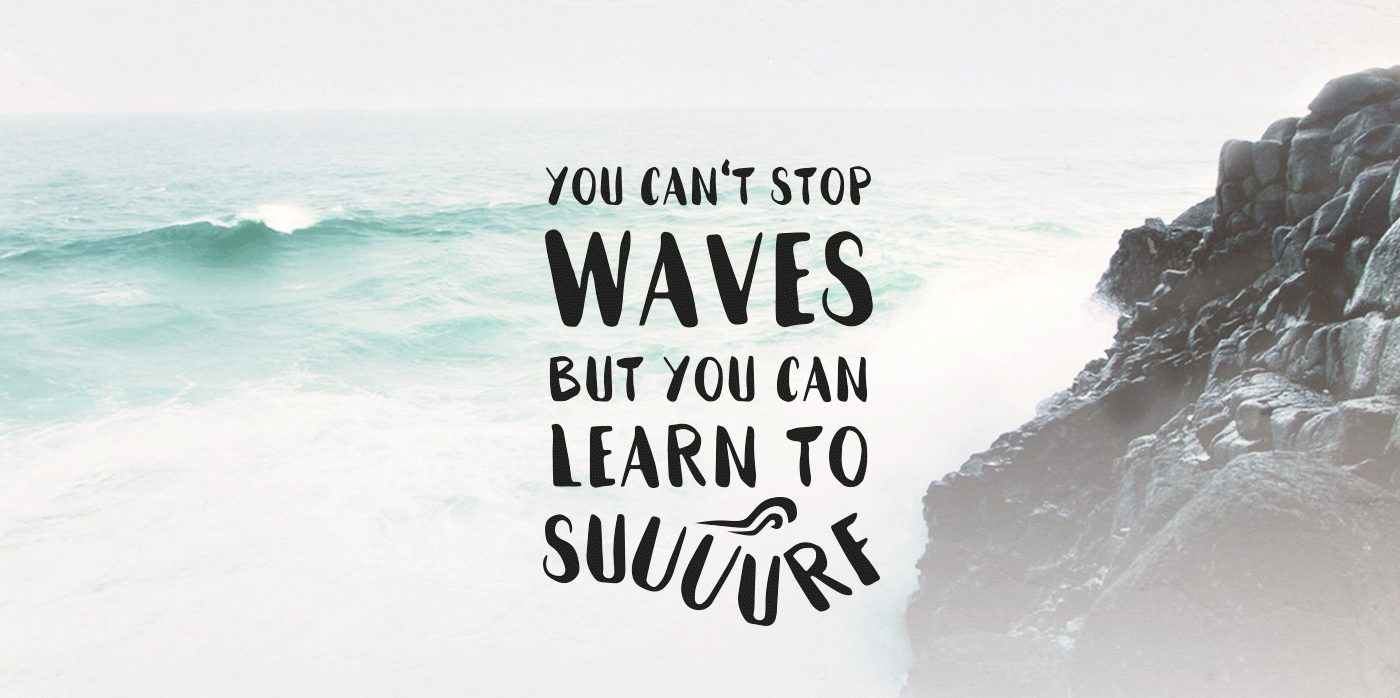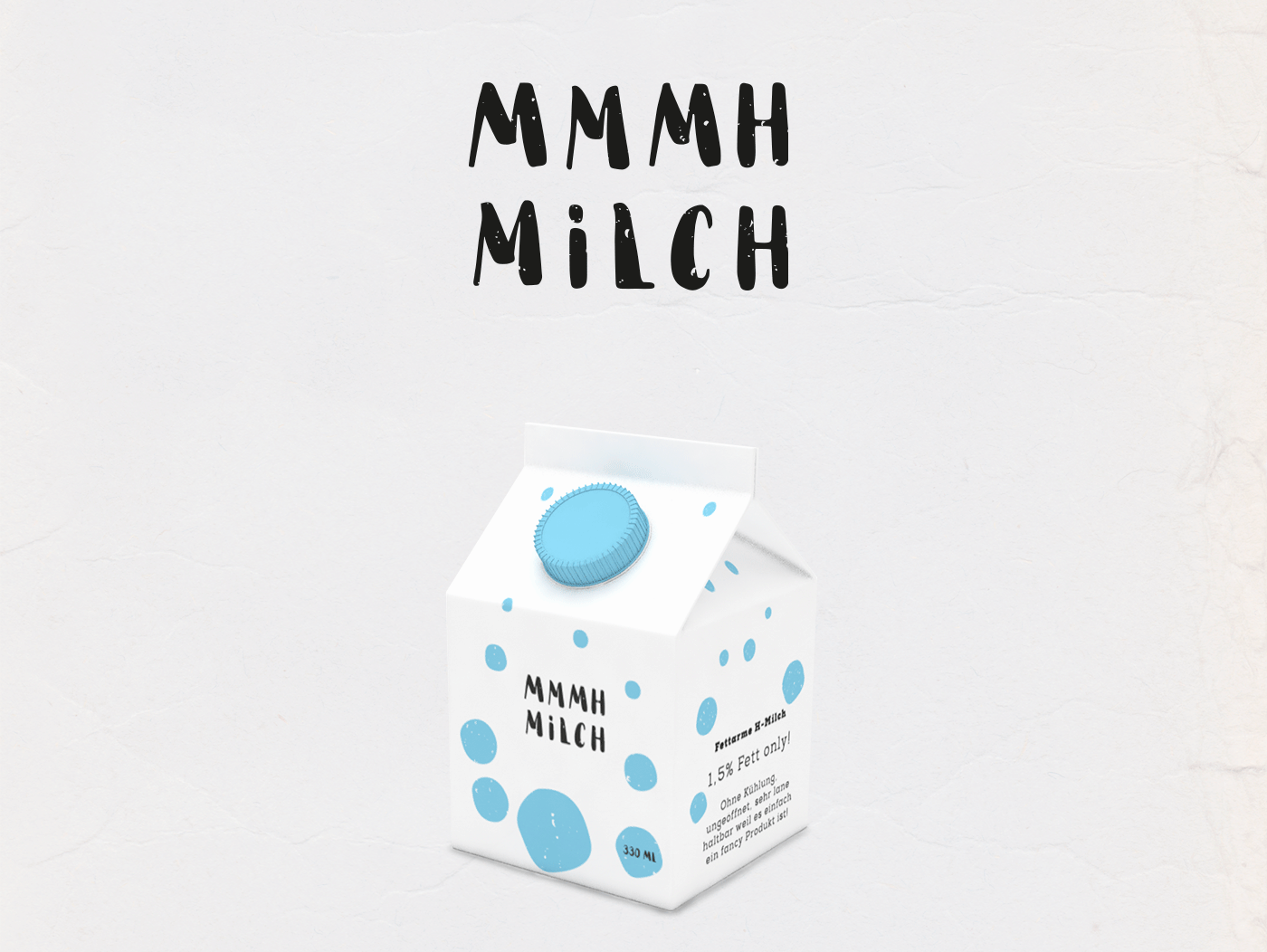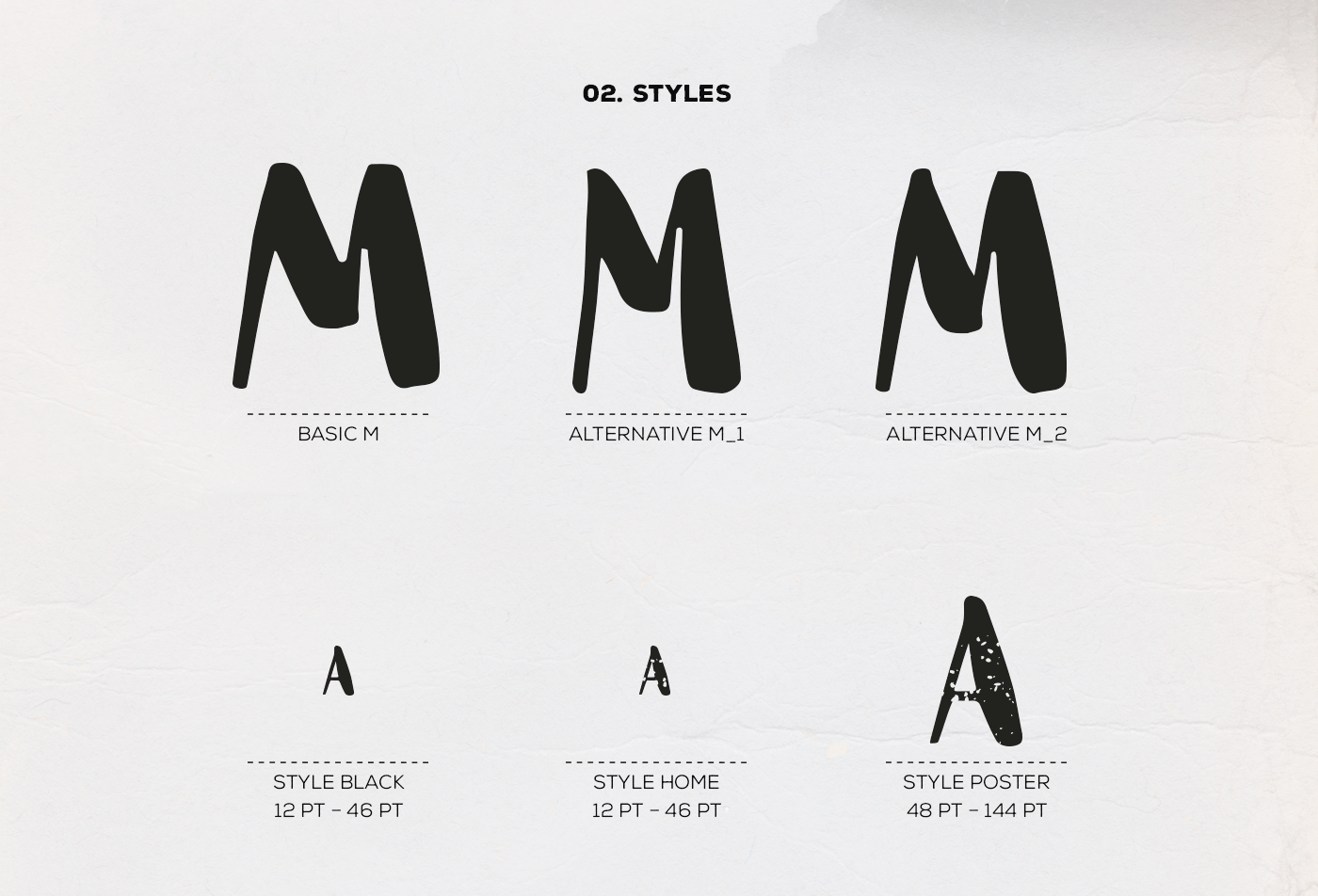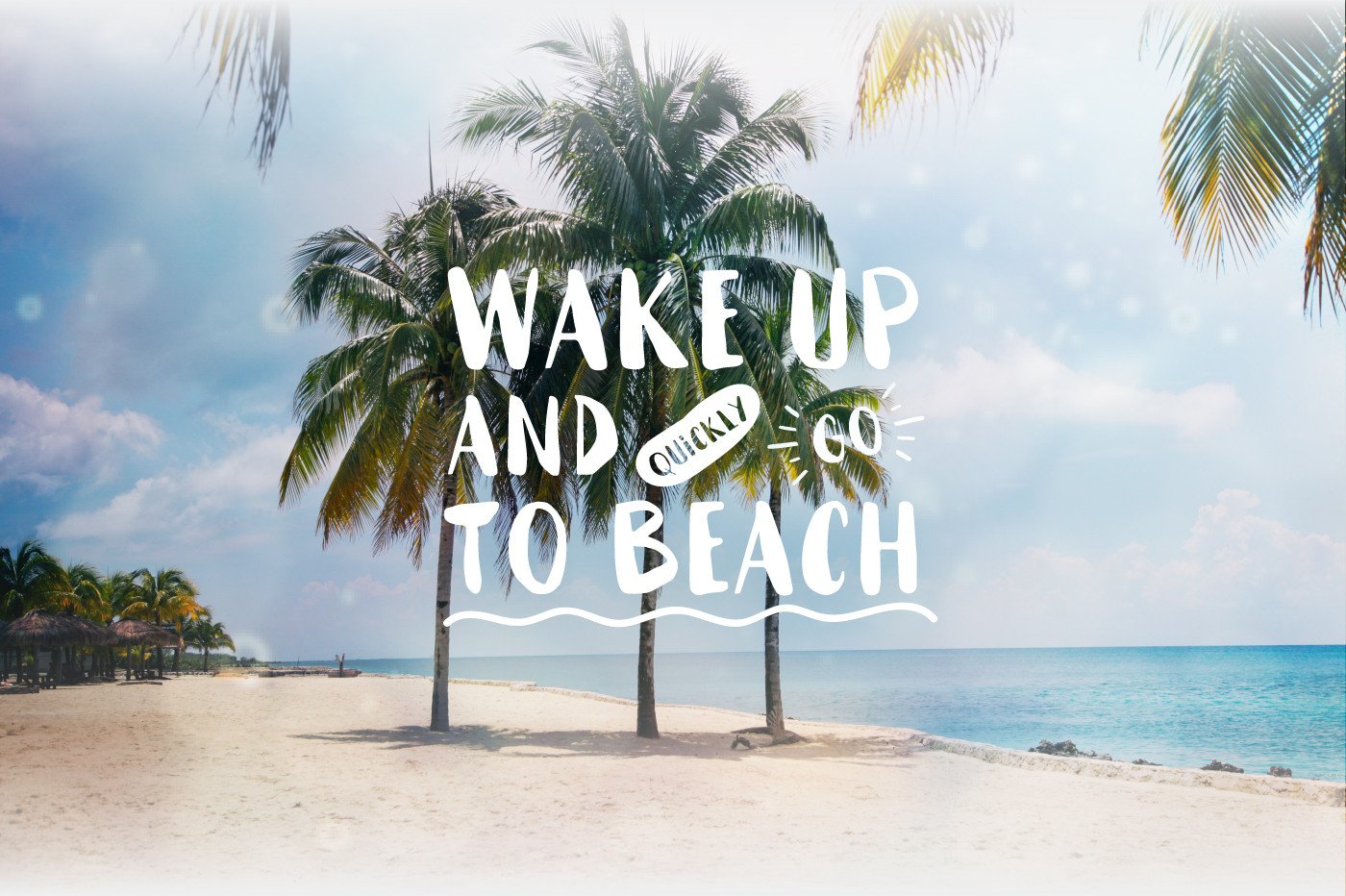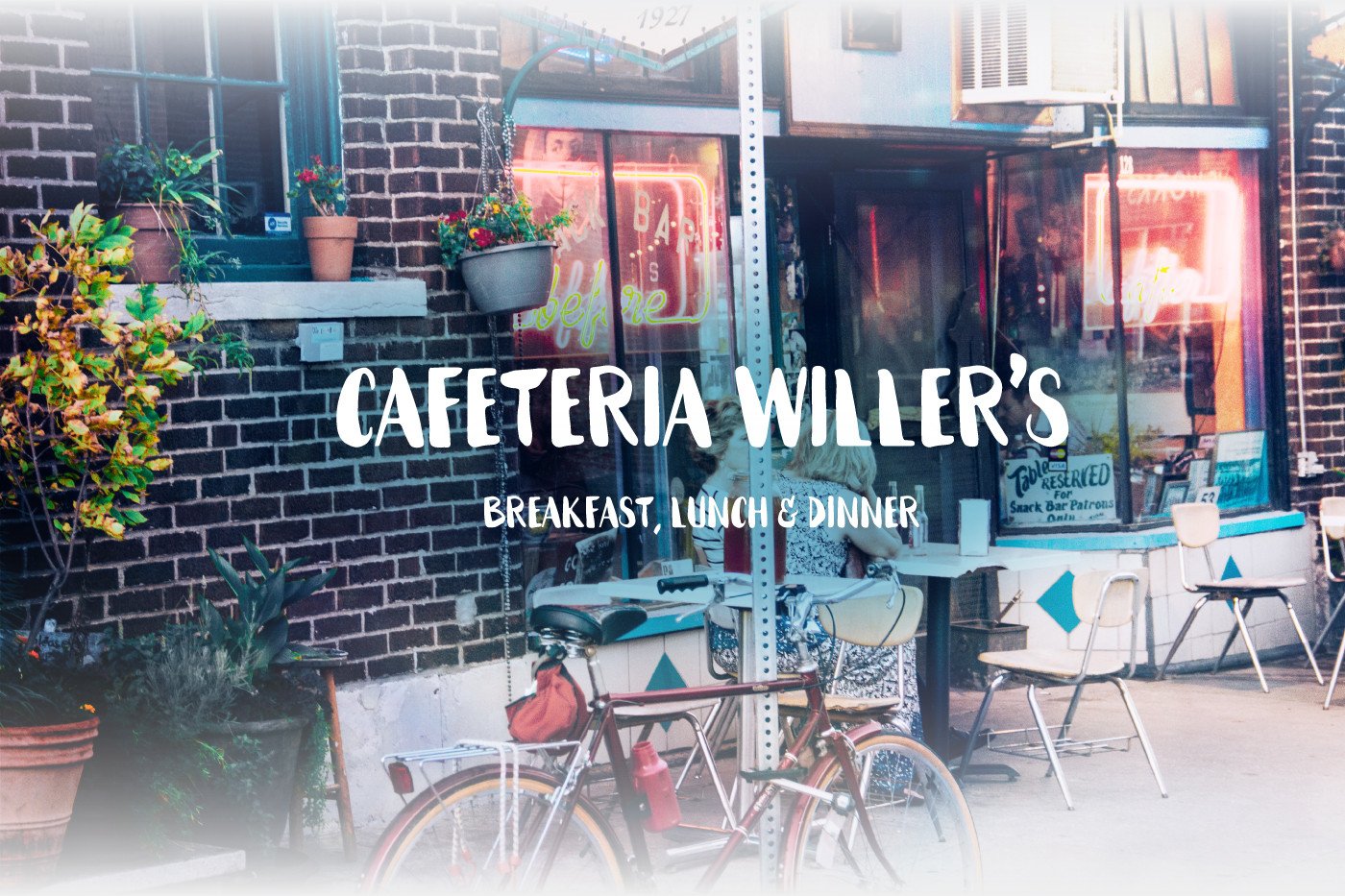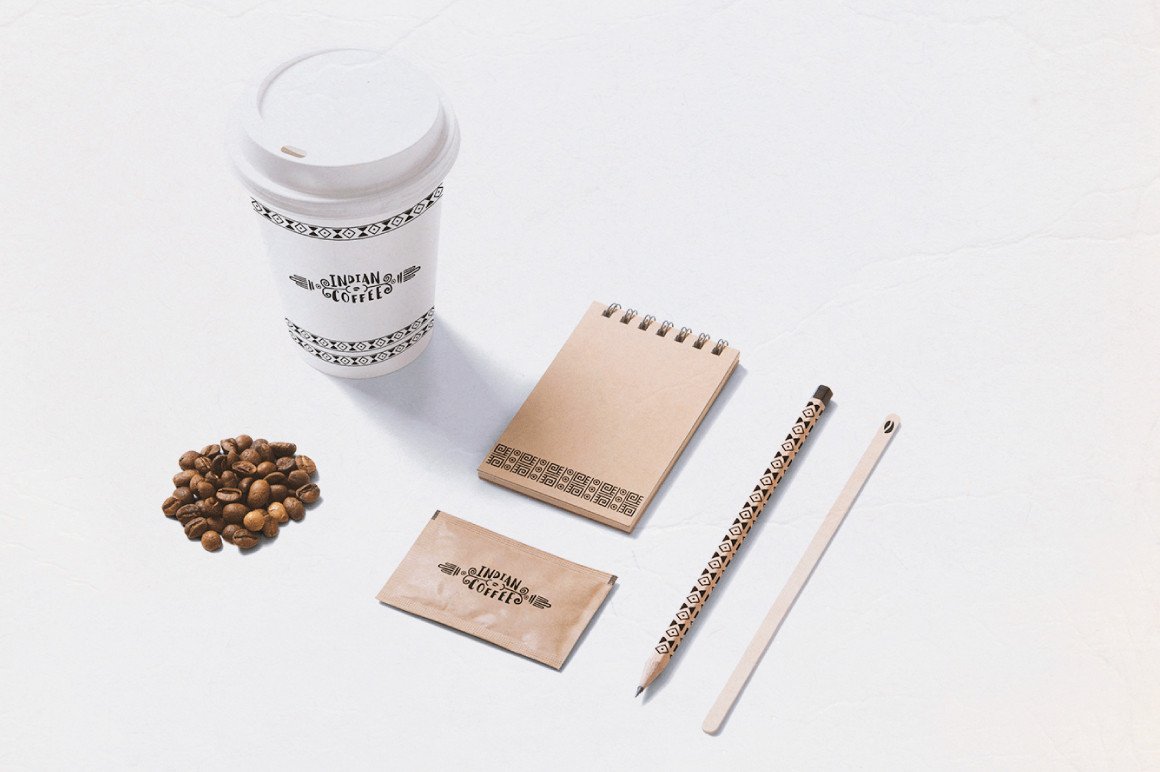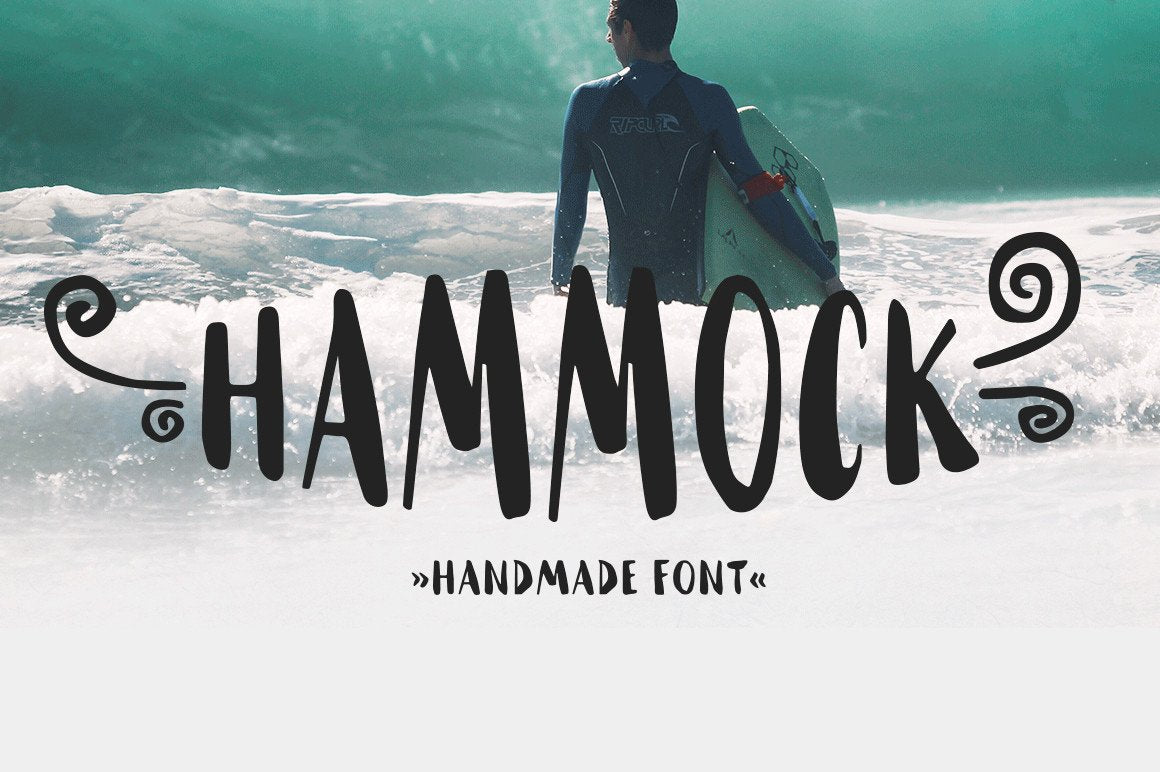
Hammock - Free Font
Hammock is a handmade font, which comes in handy for everyone who looks for a fresh and nice look. The font embodies the passion for travellng, surfing, nature and everything else made with love. The font is made by the talented font creator Andreas Twardzik.